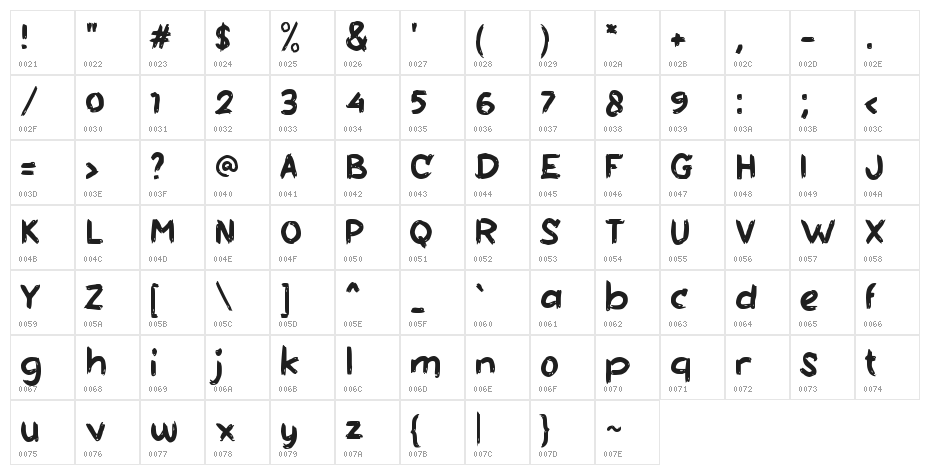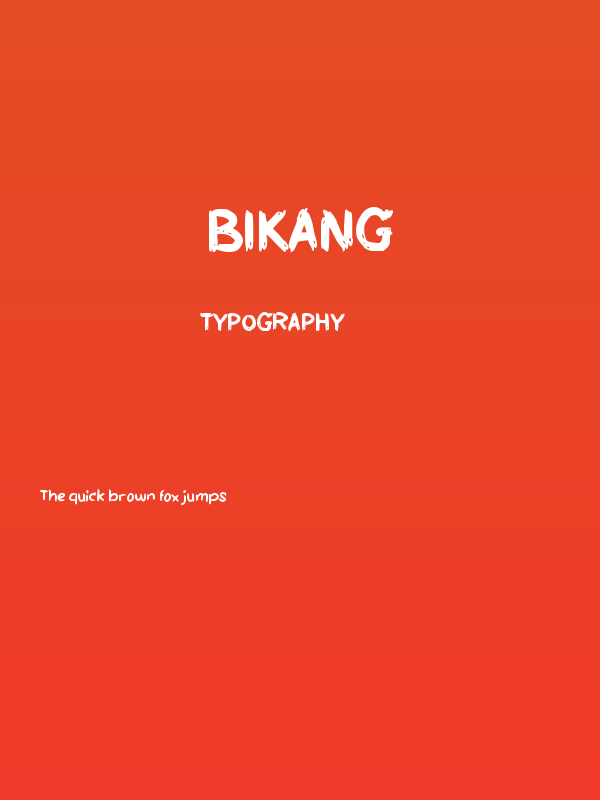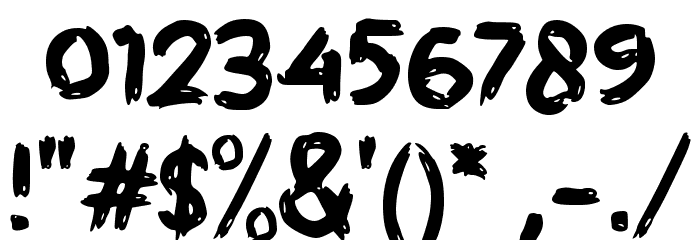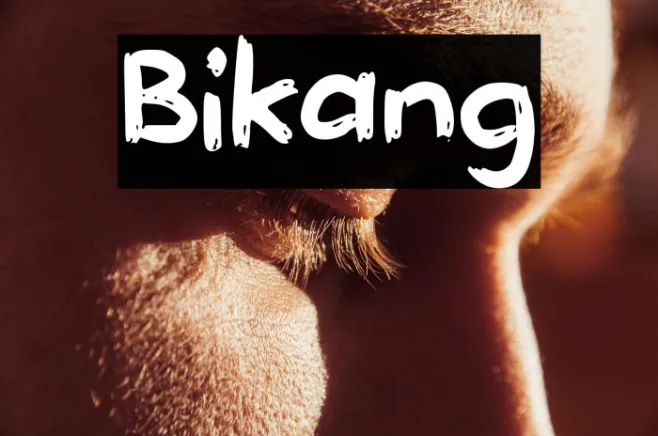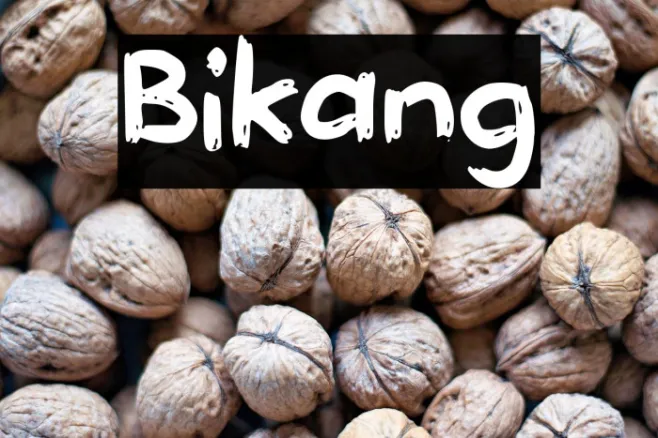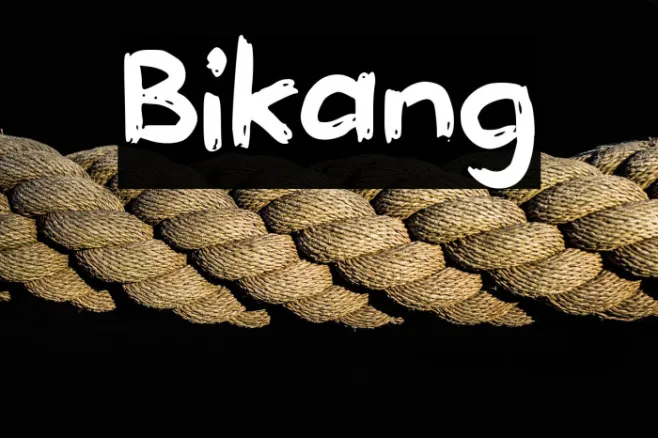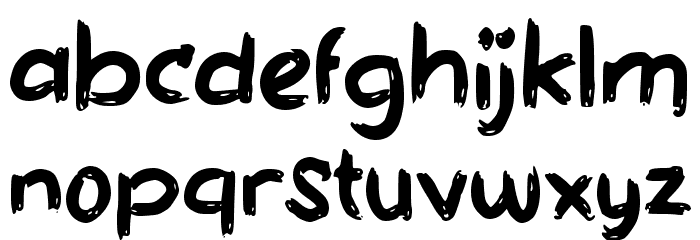
Bikang Font
Bikang Description
This font features a bold and expressive style with a hand-drawn appearance. The characters are irregular and dynamic, giving a sense of movement and energy. The strokes are thick and uneven, with a playful and artistic flair. This font is reminiscent of graffiti or street art, making it ideal for projects that require a creative and informal touch. The uppercase and lowercase letters maintain a consistent style, while the numbers and special characters are equally bold and distinctive.
| Proposed Projects | Ideal for posters, album covers, street art-inspired designs, and creative branding. |